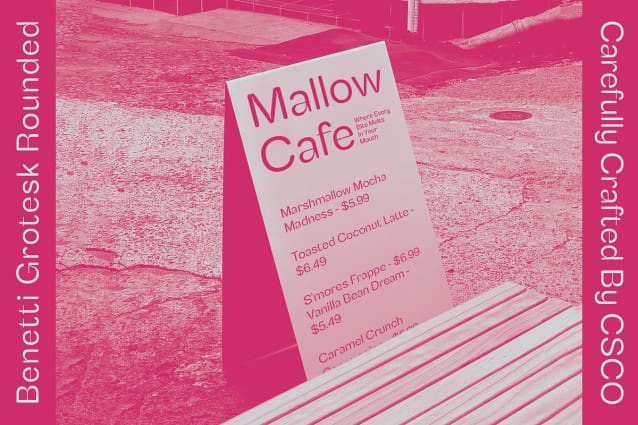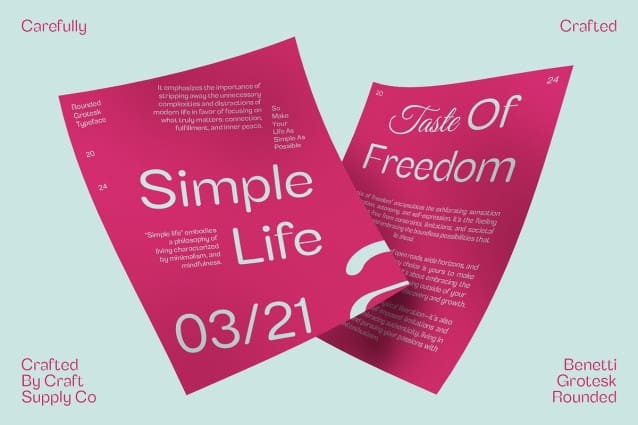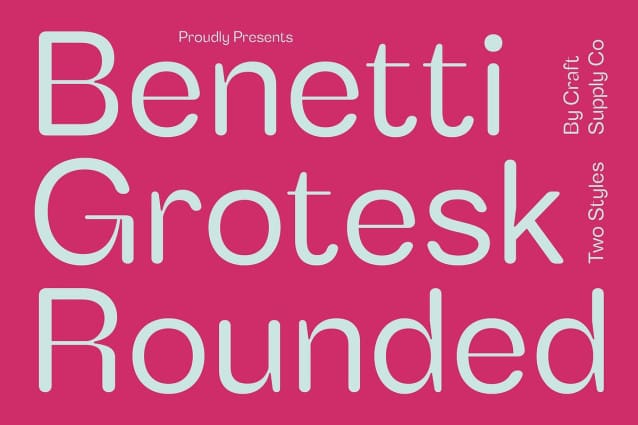
Benetti Grotesk Rounded Font
Benetti Grotesk Rounded Font: The Versatile Display Typeface. Sleek and Rounded Design Benetti Grotesk Rounded features a sleek sans-serif grotesque design with rounded stem ends. This unique characteristic adds a touch of softness and modernity to its overall appearance.
Suitable for Casual and Formal Display Whether for casual or formal display purposes, This font excels. Its versatile nature allows it to adapt seamlessly to various design contexts, from laid-back posters to corporate presentations.
Balancing Elegance and Playfulness With its rounded stem ends, This font strikes a perfect balance between elegance and playfulness. It exudes a friendly vibe while maintaining a sense of professionalism, making it ideal for a wide range of projects.
Enhanced Visual Appeal The rounded details of This font not only add visual interest but also enhance readability and legibility. Whether used in large headlines or small captions, this typeface ensures clarity and impact.
A Modern Classic This font emerges as a modern classic in display typography. Its sleek and rounded design, coupled with its versatility and enhanced visual appeal, makes it a go-to choice for both casual and formal display needs. Experience the perfect blend of elegance and playfulness with This font.